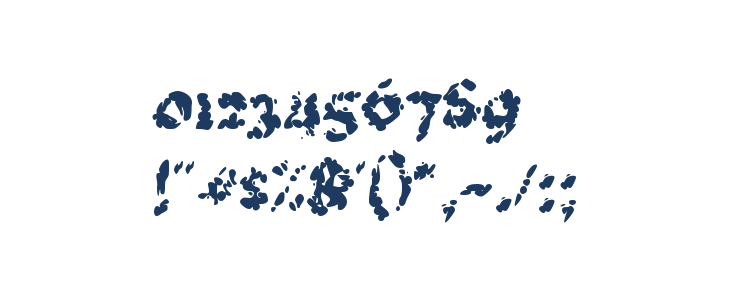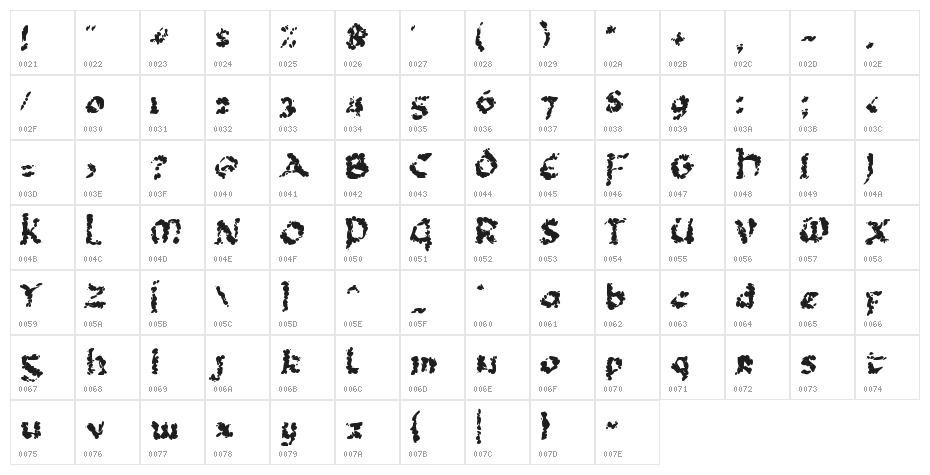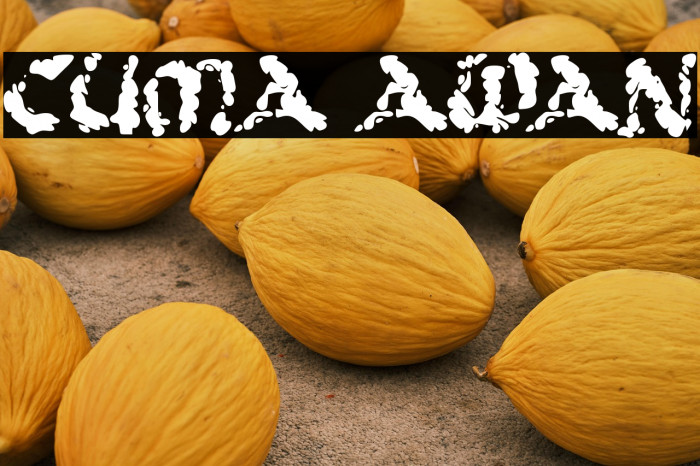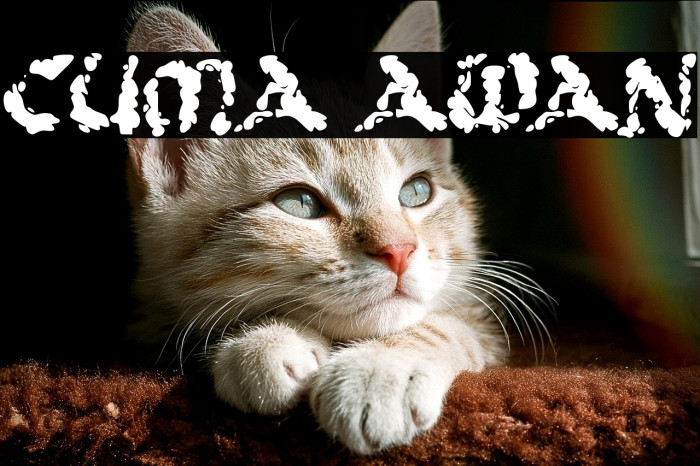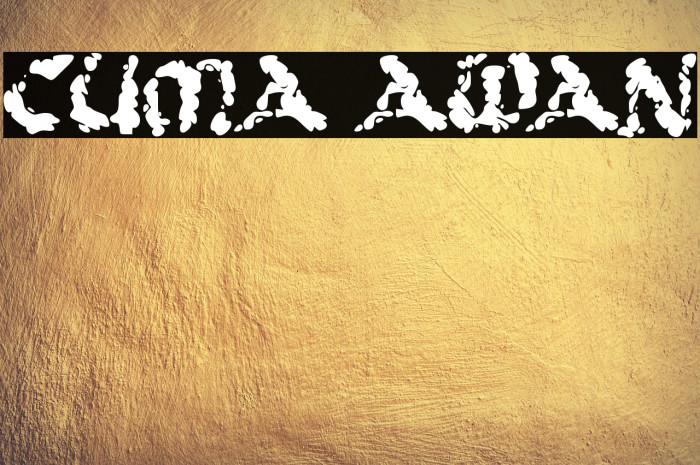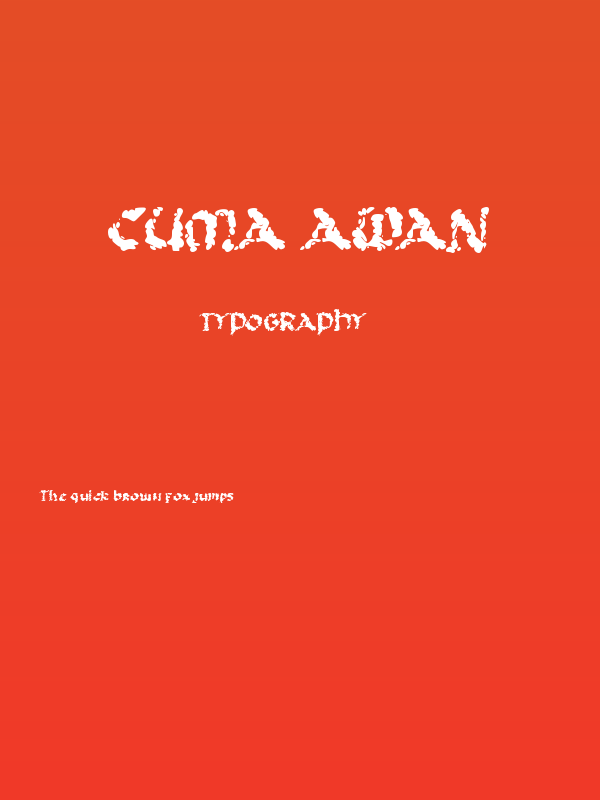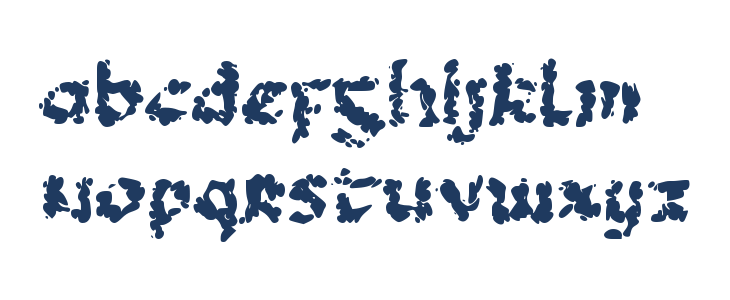
CUMA AWAN Font
CUMA AWAN Description
This font features a highly decorative and abstract style, characterized by irregular, splattered shapes that form each character. The letters appear as if they are composed of ink blots or paint splashes, giving it a chaotic yet artistic appearance. The uppercase and lowercase letters maintain a consistent design, with each character exhibiting unique and unpredictable contours. The numbers and special characters follow the same aesthetic, ensuring a cohesive look across all glyphs. This font's distinct style makes it stand out, ideal for creative and unconventional design projects.
| Proposed Projects | Ideal for artistic posters, album covers, creative branding, and experimental design projects. |